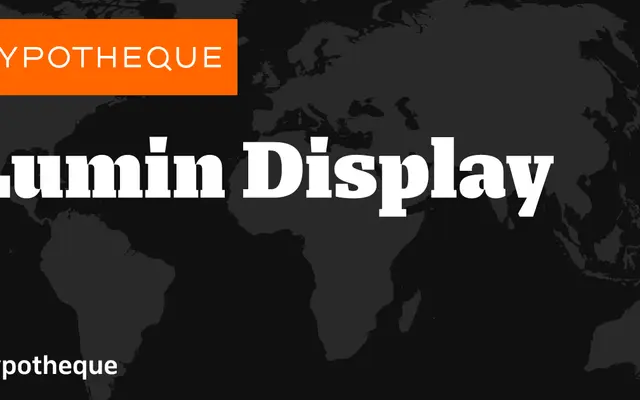
Lumin Display
A high-impact display serif from Typotheque, available in condensed and extended Black weights with italics and variable font support.
Part of the broader Lumin type system alongside Lumin and Lumin Sans, the Display subfamily focuses exclusively on expressive Black-weight settings across three widths: Condensed, Standard and Extended. Each width comes with a matching italic, and a variable font version is also available. The system's shared DNA across serif and sans subfamilies makes it well suited to publications and identity work that need consistent but visually varied typographic hierarchies.
Lumin Display is an expressive display-weight extension of the Lumin family, offered in Black weights with condensed and extended width variants, positioning it firmly as a high-impact display serif system.